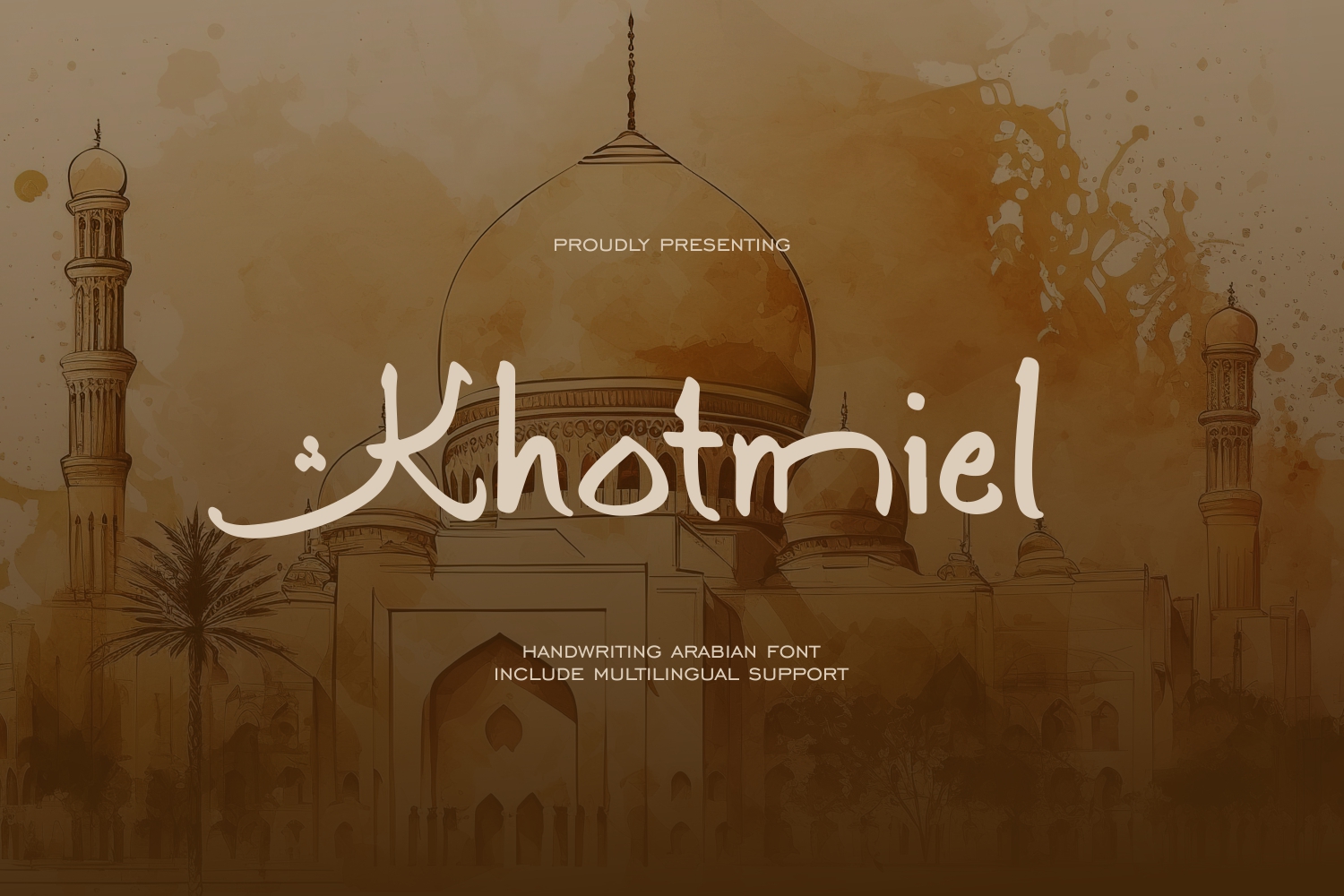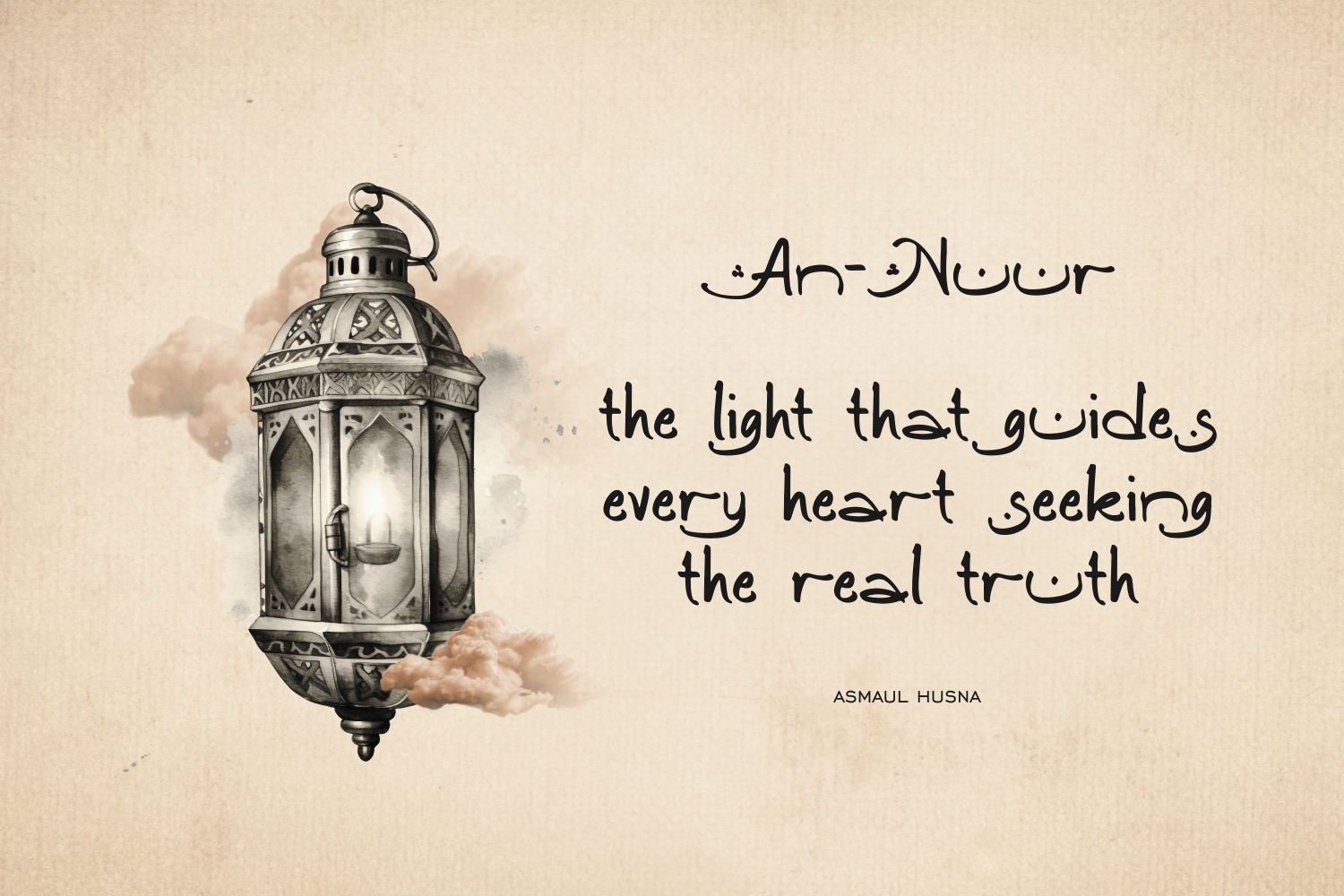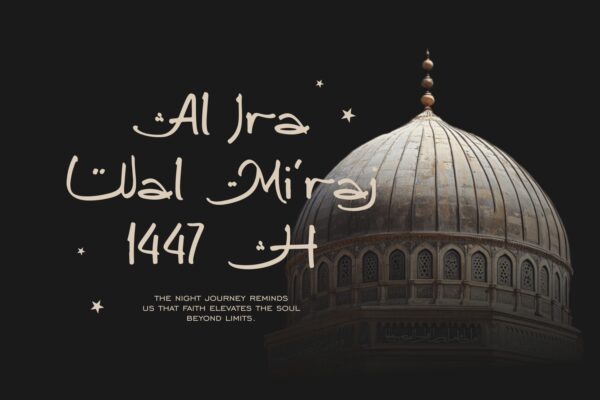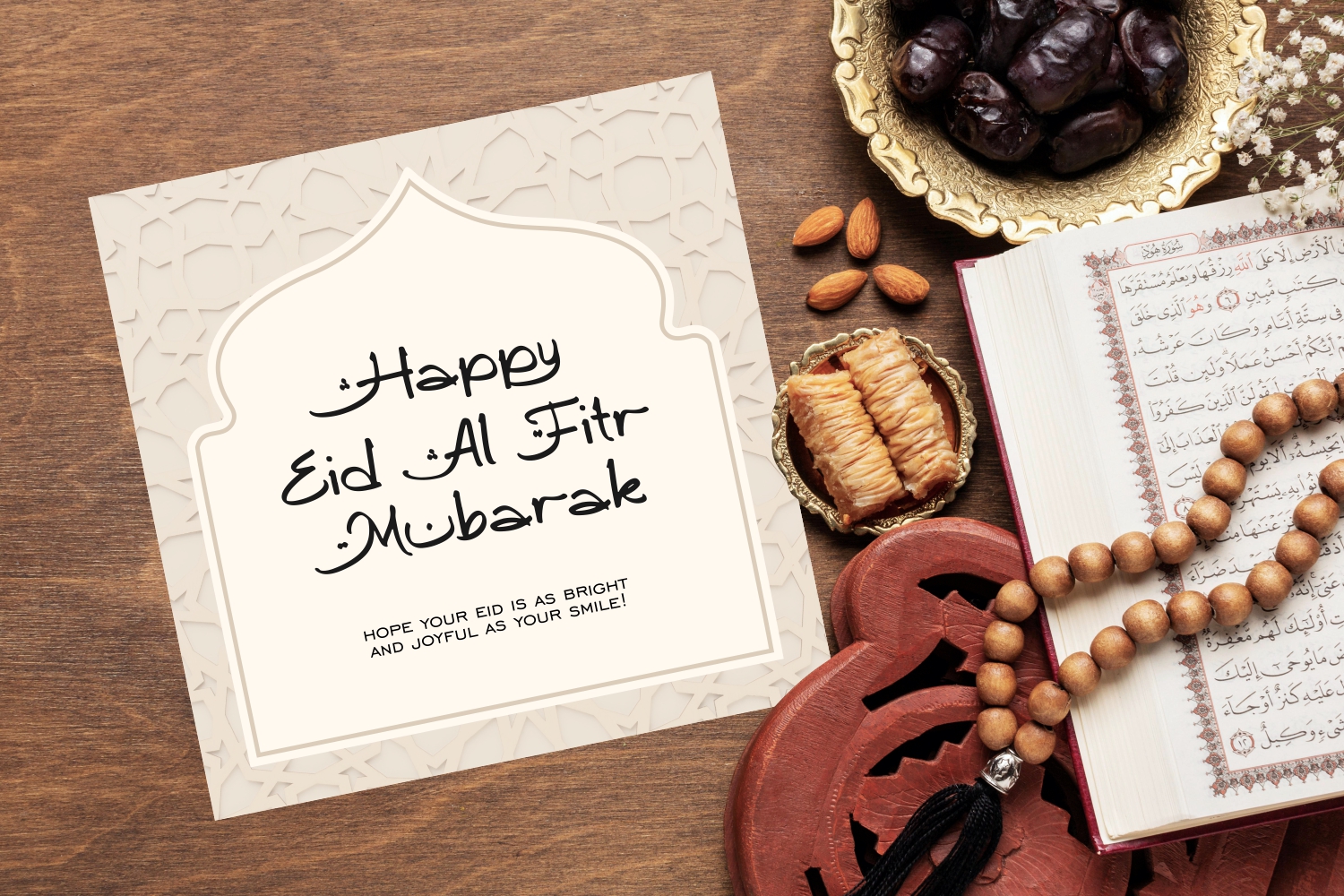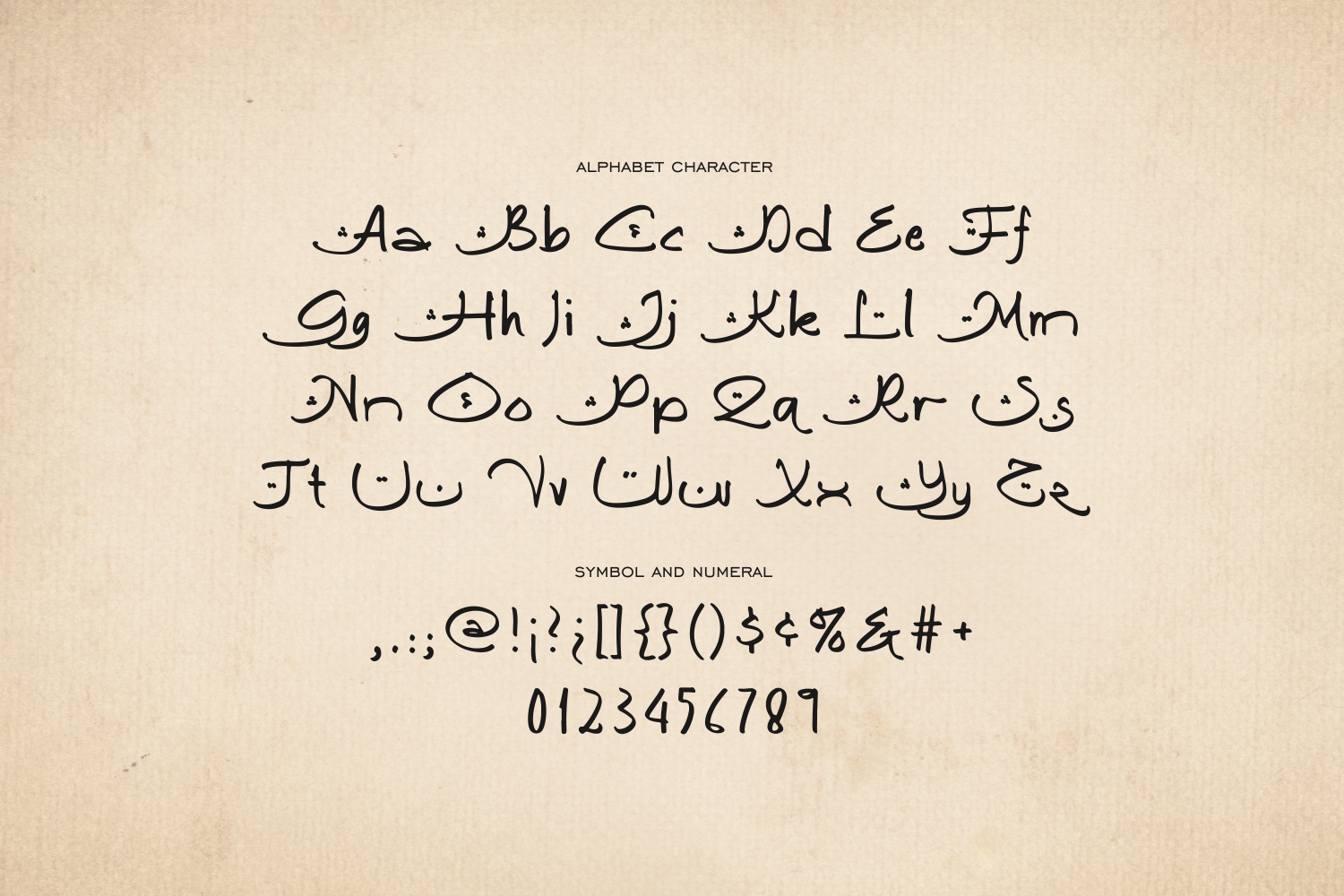
Khotmiel is a unique handwriting Arabian font that combines the elegance of traditional calligraphy with the warmth of a hand-drawn style. Its flowing strokes and natural curves capture an authentic handwriting essence, enhanced with subtle decorative elements inspired by Arabic script aesthetics. This makes it perfect for religious themes, cultural projects, invitations, and spiritual designs that aim to convey sincerity and heritage.
The font also supports multilingual characters, offering versatility for global use while maintaining its distinct Arabian charm. With both uppercase, lowercase, numbers, and symbols included, Khotmiel adapts beautifully to posters, greeting cards, Ramadan and Eid designs, book covers, or social media templates. Its expressive style ensures every message feels heartfelt and timeless.